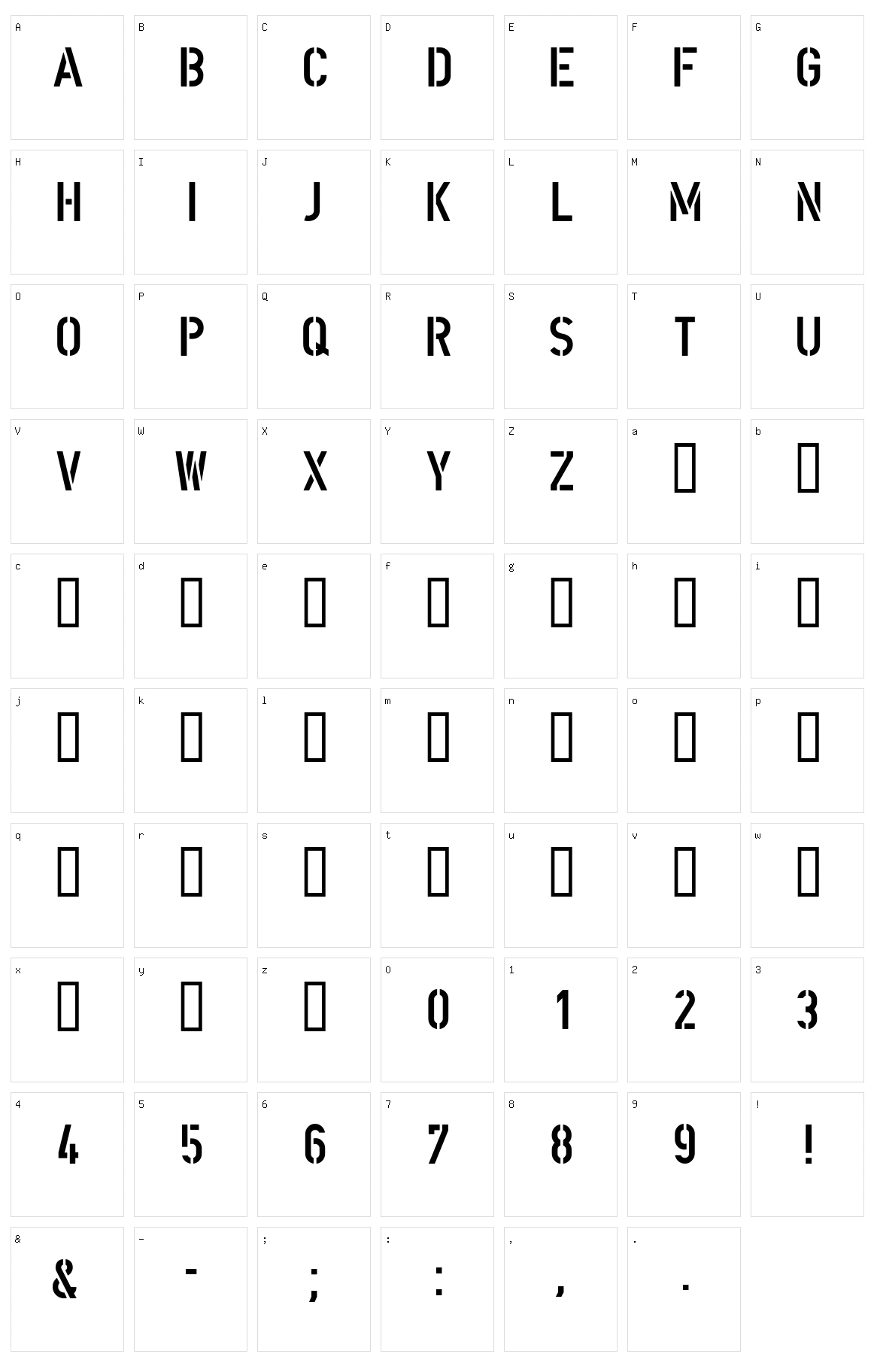
The free font DIN Schablonierschrift is carefully designed by Marian Steinbach, showcasing a thoughtful balance of creativity and usability and falls under the Stencil font style. When you download the ZIP file, it contains only 51.15 KB of font files, making it lightweight and quick to download. Please review the license details below to understand permitted usage and distribution rights. If license information is not available, we recommend using this font for personal projects only or contacting the author directly for commercial usage permissions.